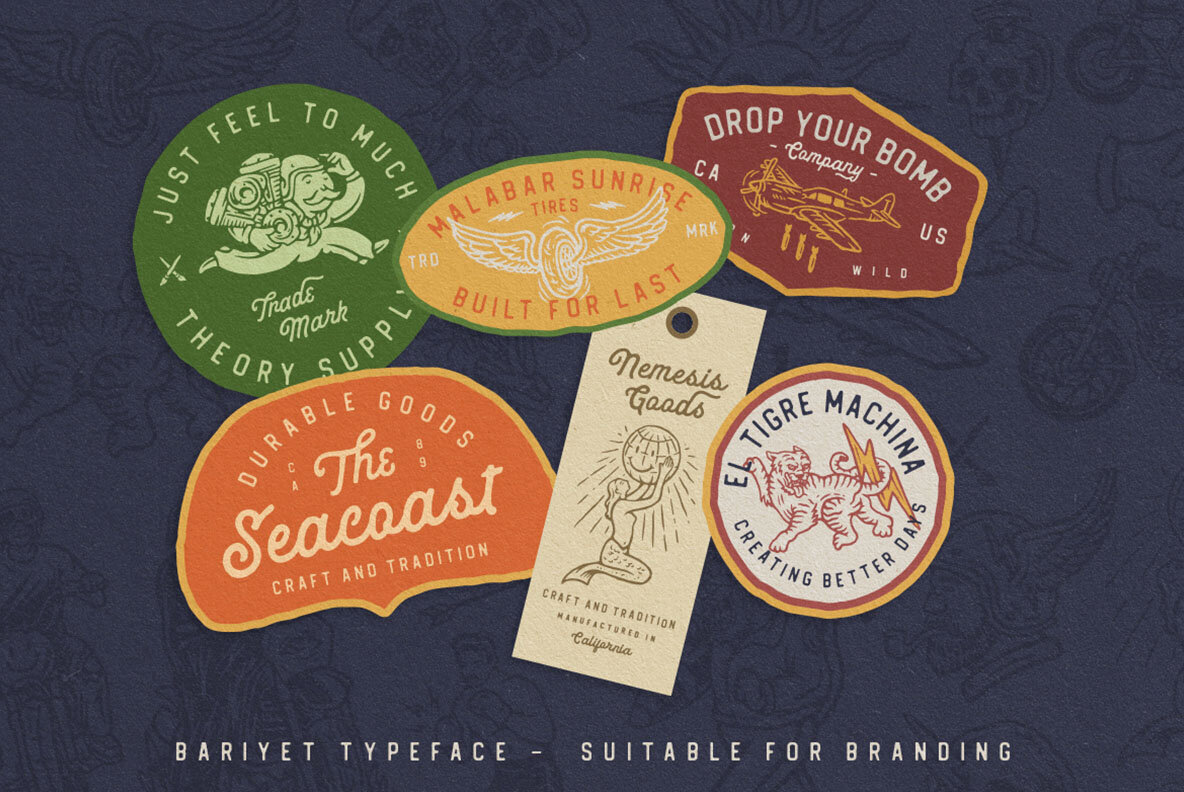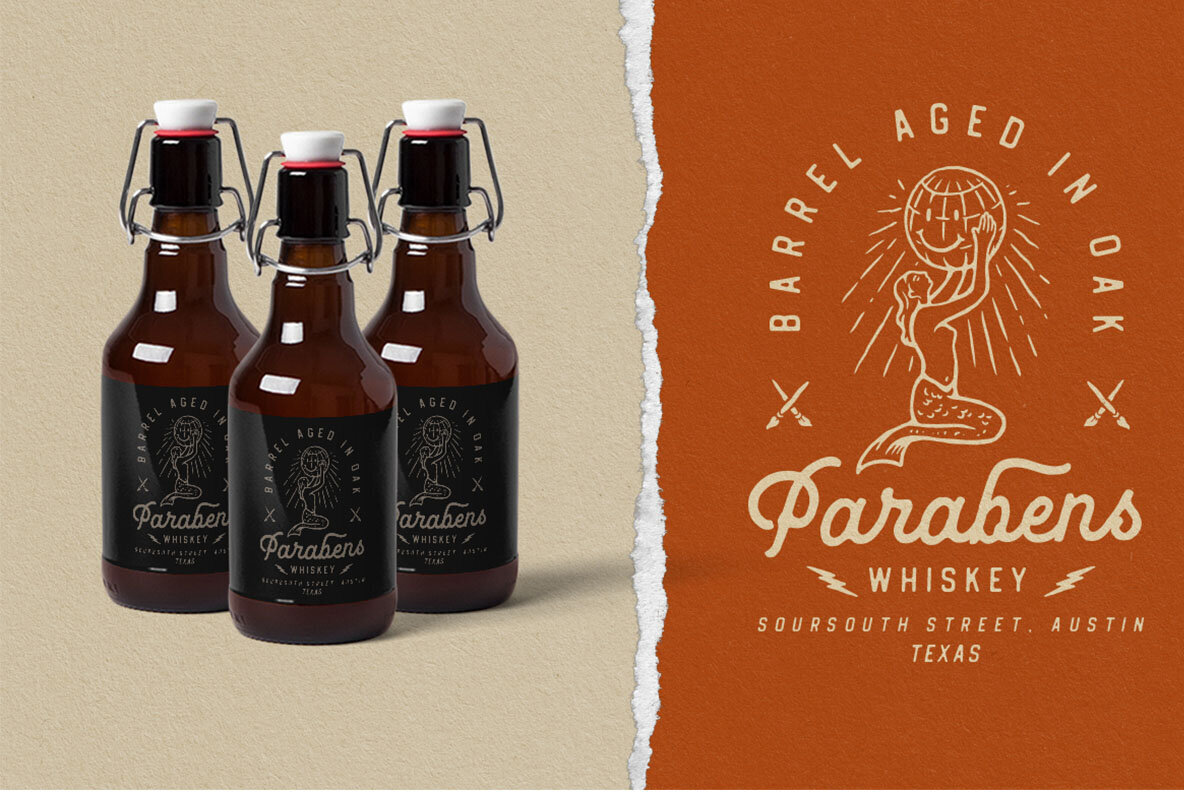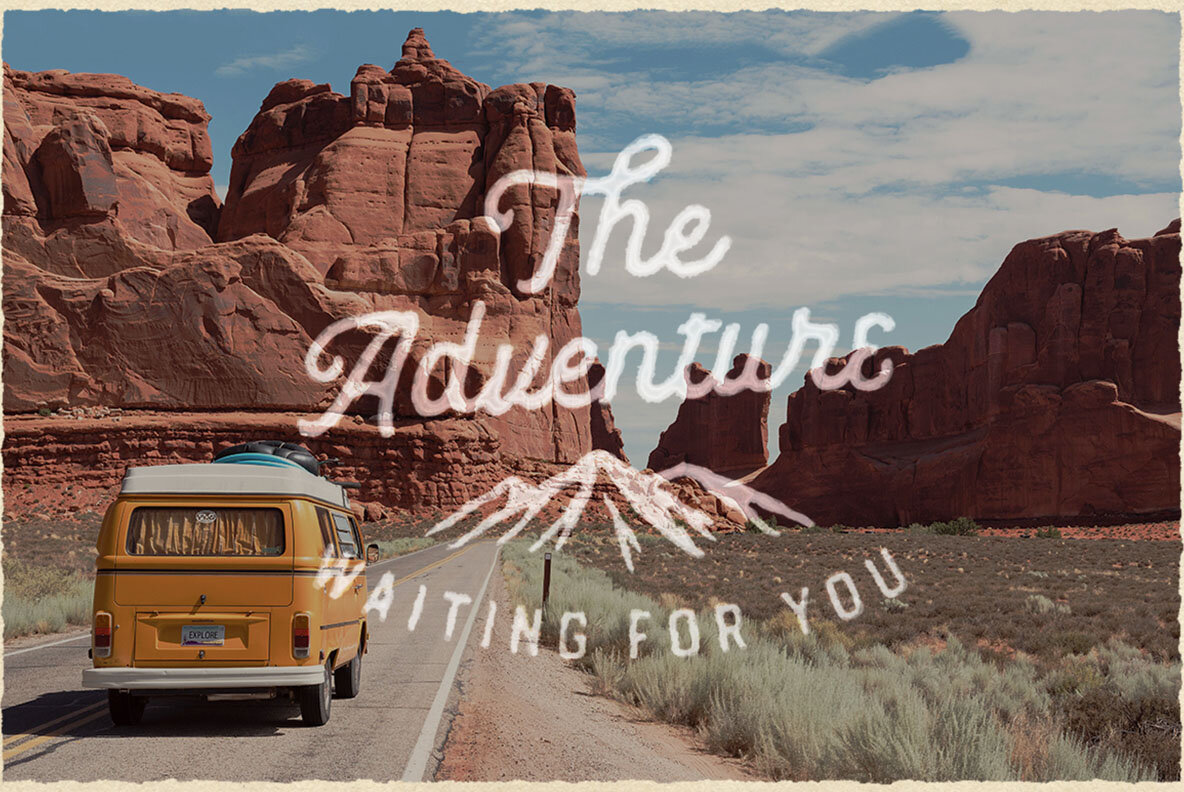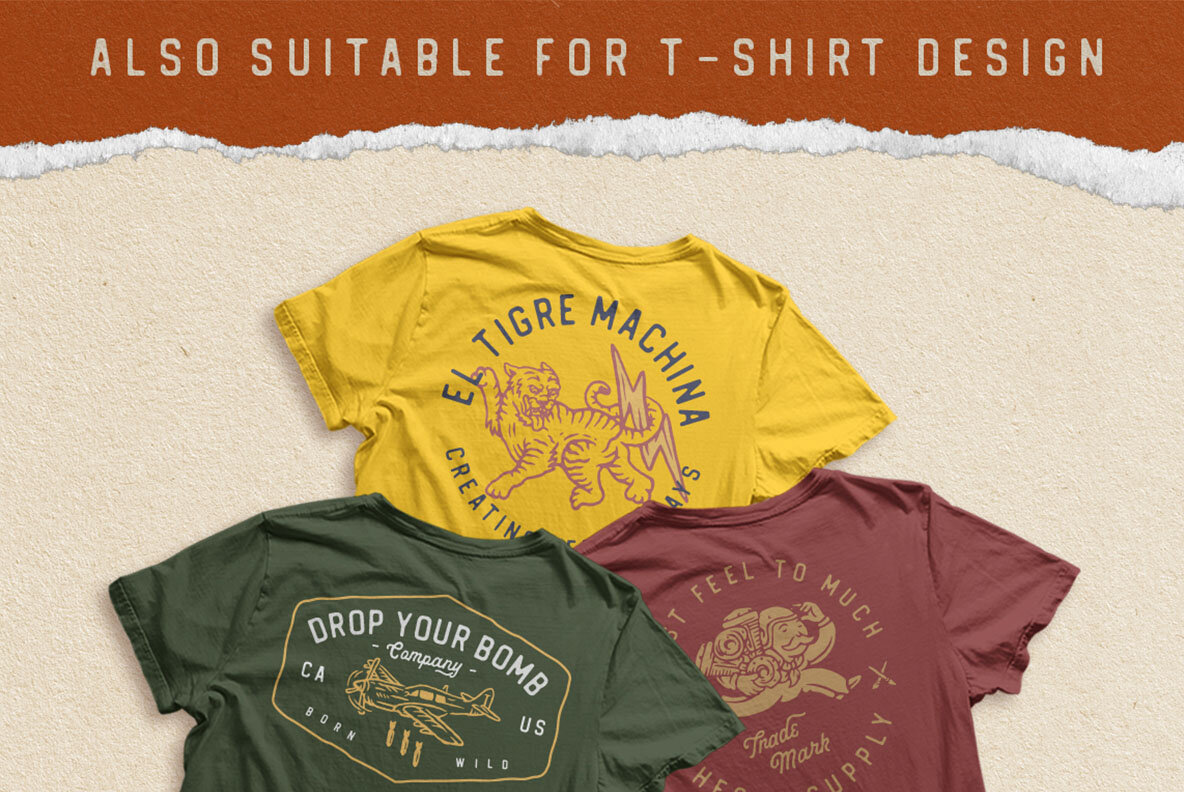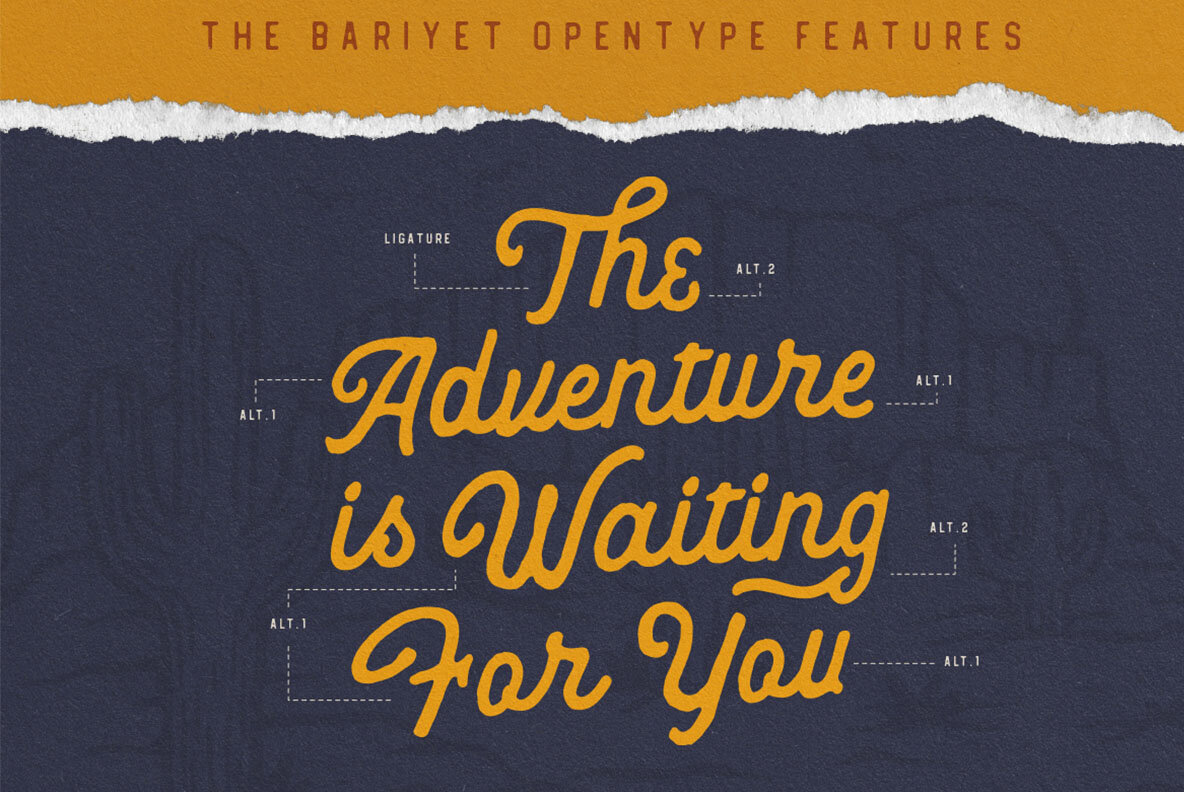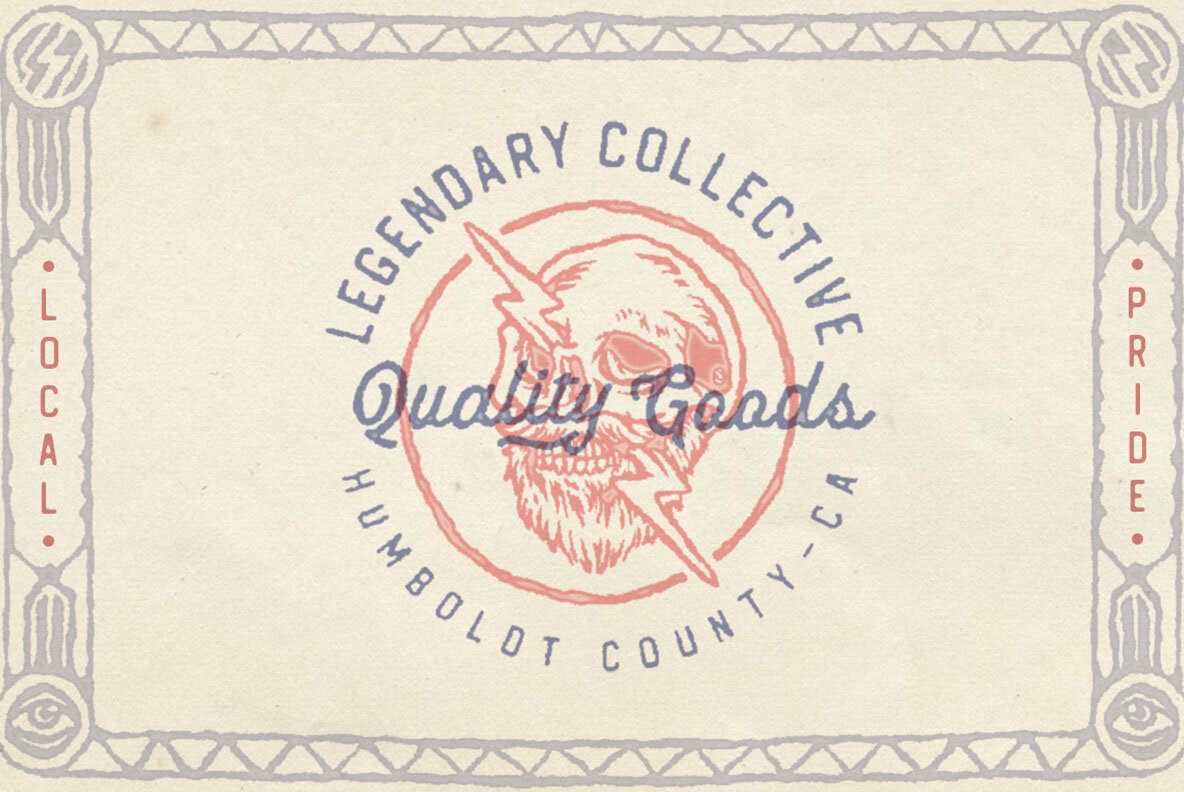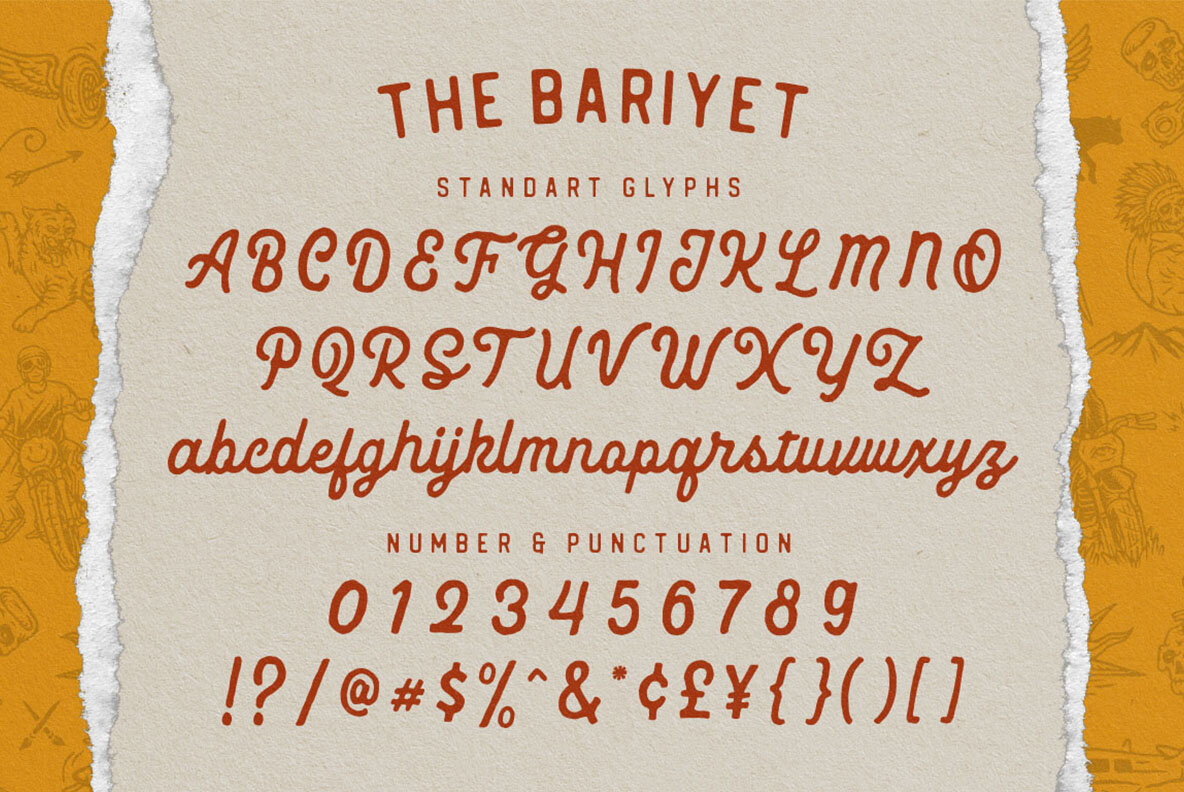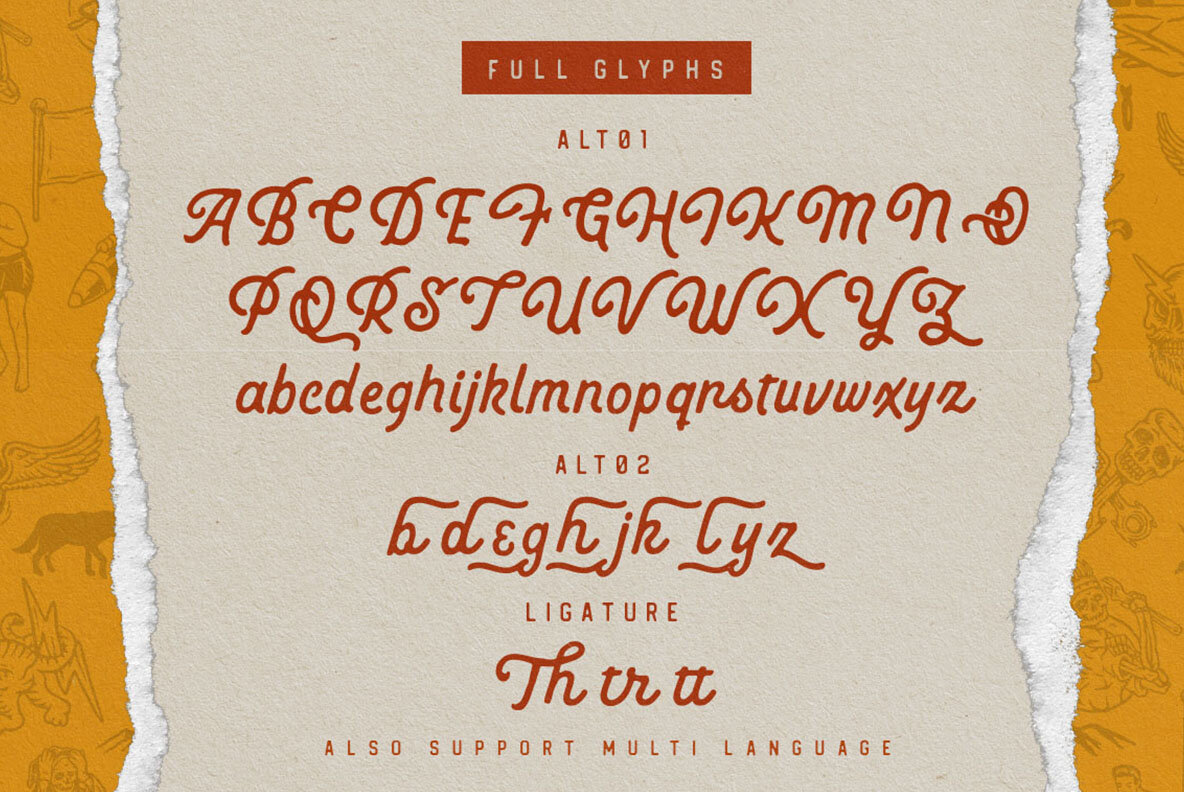
The Bariyet Font
The Bariyet, crafted by Ironbird Creative, is a hand-drawn script font that exudes a vintage and classic charm. This organic typeface presents a handmade appearance, offering a nostalgic feel reminiscent of a bygone era. Ideal for designers seeking an aged aesthetic, The Bariyet seamlessly complements various design projects. Embrace The Bariyet for an array of applications, from branding materials and business cards to posters and t-shirts. Its versatility extends to logos, photography captions, and inspirational quotes, making it a beloved choice for those with a fondness for vintage design.The Bariyet Script Typeface: A Vintage Aesthetic
Perfect for Diverse Graphic Design Applications